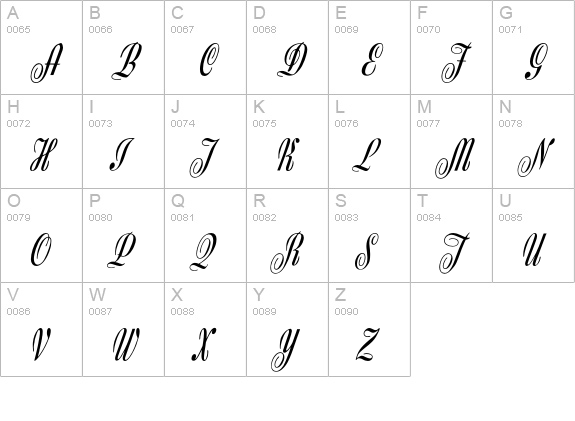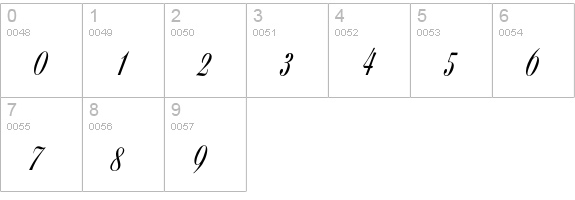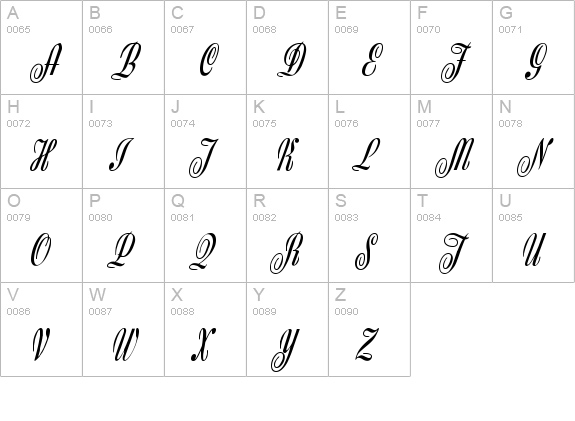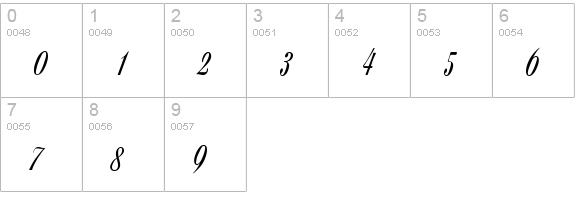
Zanzibar Font Details
Zanzibar font is a unique and stylish typeface that exudes elegance and sophistication. With its sleek lines and modern design, Zanzibar is perfect for adding a touch of class to any project. This versatile font is suitable for a wide range of applications, from branding and advertising to invitations and packaging. What sets Zanzibar font apart is not only its striking appearance but also the fact that it is available for free download at FontsMarket.com. This means that you can enhance your designs without breaking the bank, making Zanzibar font the perfect choice for budget-conscious designers looking to make a statement. Whether you're working on a personal project or a professional assignment, Zanzibar font will help you stand out from the crowd with its unique style and flair. Download it for free today and elevate your designs to new heights with Zanzibar font.